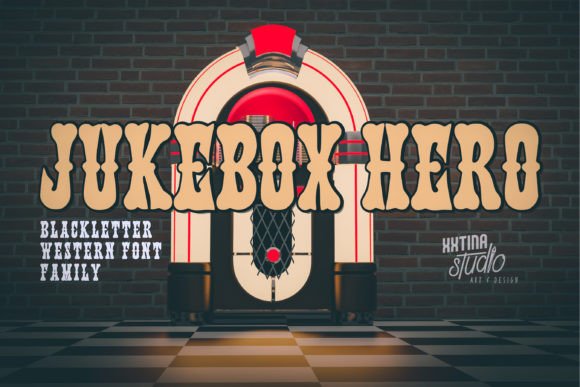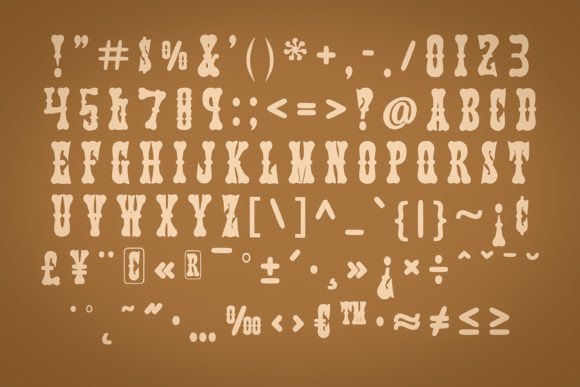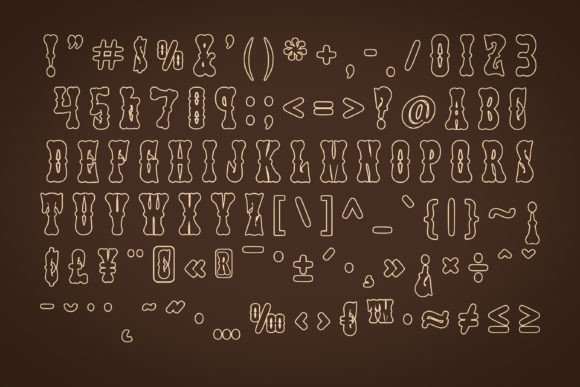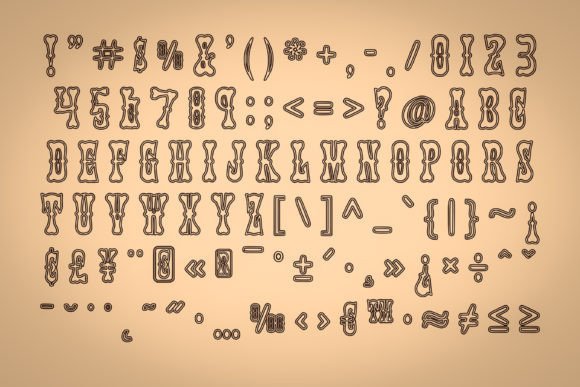
Jukebox Hero Font
About the Jukebox Hero Font
We are excited to introduce Jukebox Hero Font, a must-have typeface for any serious designer. Jukebox Hero is an all-caps, blackletter western font. Fall in love with its incredibly versatile style and use it to create gorgeous wedding invitations, beautiful stationary art, eye-catching social media posts, and much more!
Its bold, slightly rebellious personality makes Jukebox Hero ideal for headlines, posters, and branding projects needing a strong visual impact. It excels in short, impactful text, creating a sense of vintage Americana. However, its highly decorative nature makes it unsuitable for body text or UI elements where readability is paramount.
For optimal pairing, consider a clean sans-serif like Montserrat for body copy to balance the weight and intricacy of Jukebox Hero. Alternatively, a classic serif such as Garamond would provide a sophisticated contrast, enhancing the font’s vintage charm. Avoid pairing with other highly decorative or overly ornate fonts.
Jukebox Hero’s character lends itself well to brands conveying a sense of nostalgia, adventure, or handcrafted quality – think craft breweries, vintage clothing lines, or music festivals.
Jukebox Hero Font Usage Examples
Jukebox Hero Font Example